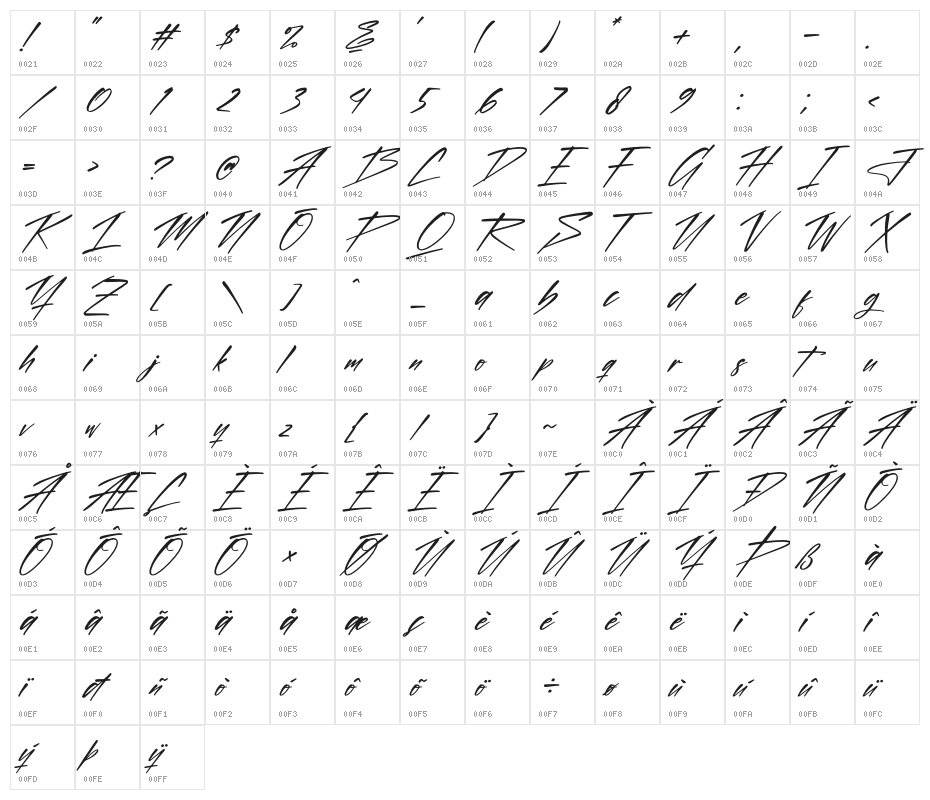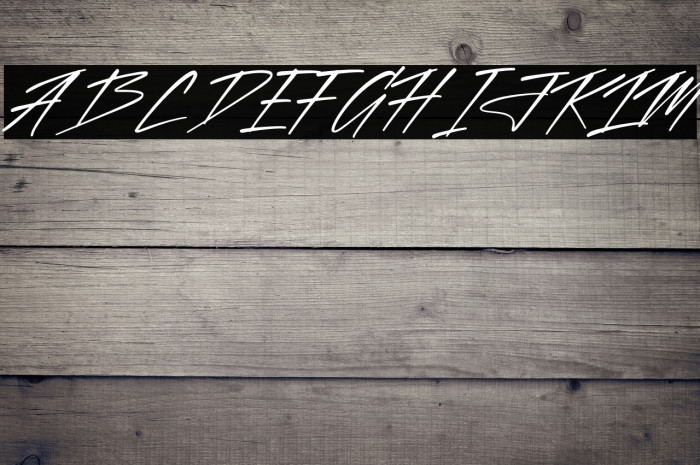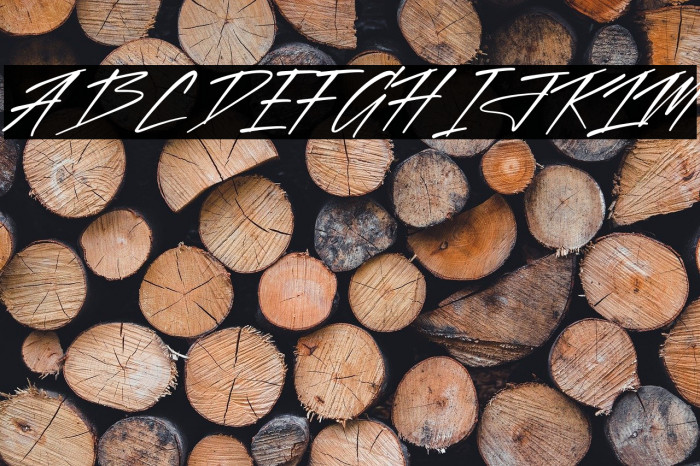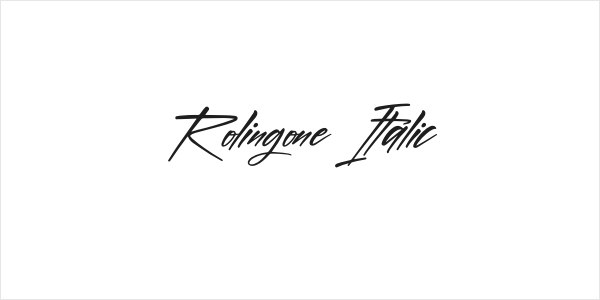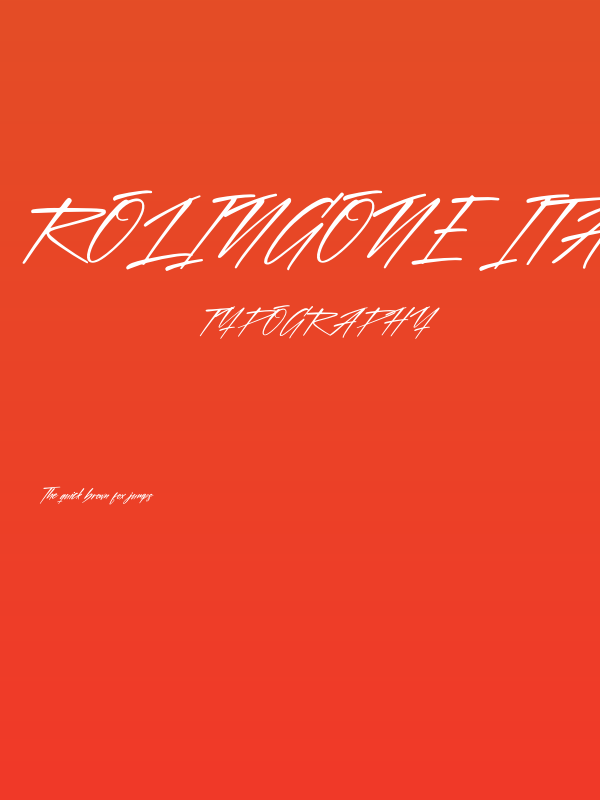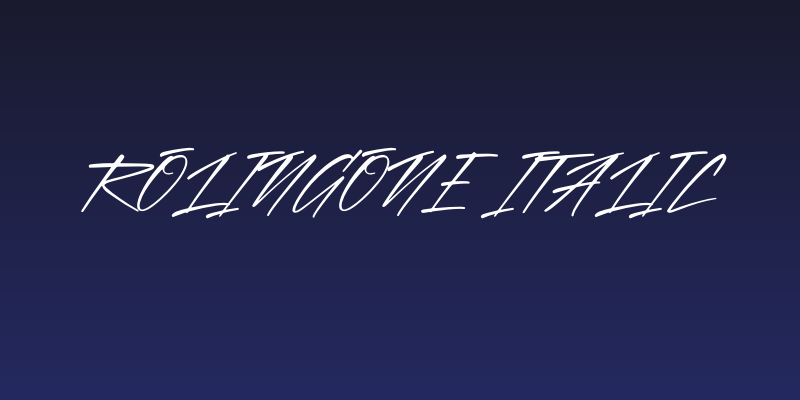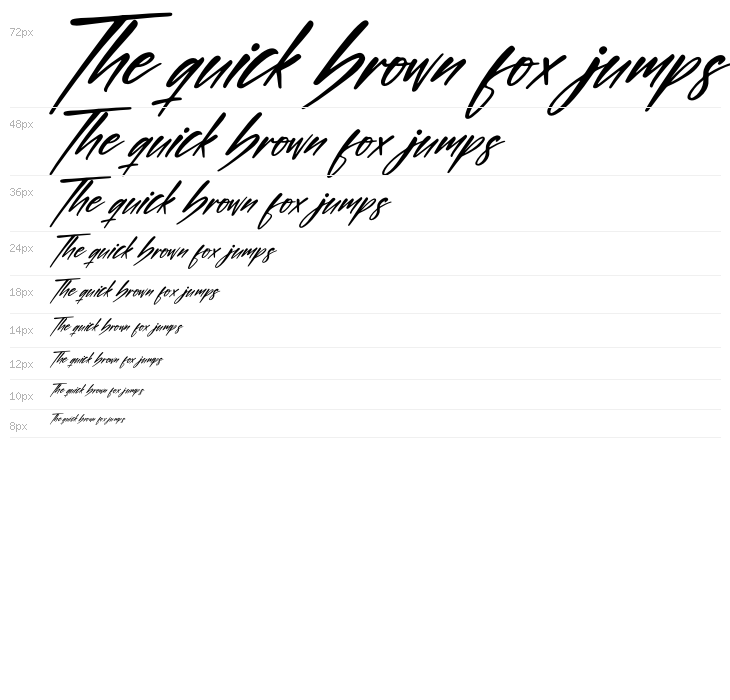
Rolingone Italic Font
Rolingone Italic Description
This font exhibits a dynamic and expressive style, characterized by its fluid, cursive strokes that mimic the natural flow of handwriting. The letters are slanted, enhancing the italic nature of the font, and feature a consistent stroke width that adds to its legibility. The uppercase letters are bold and prominent, while the lowercase letters maintain a smooth and connected appearance, lending an elegant and sophisticated feel. The numerals and special characters are crafted with the same attention to detail, ensuring a cohesive look across all elements. This font is ideal for projects that require a personal touch, such as invitations, greeting cards, or branding materials.